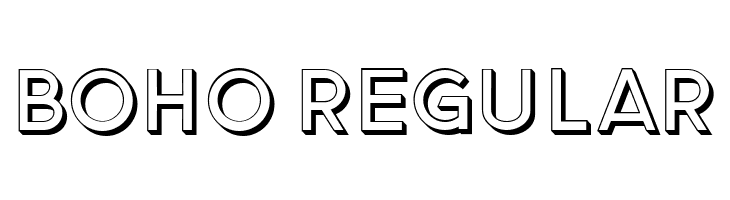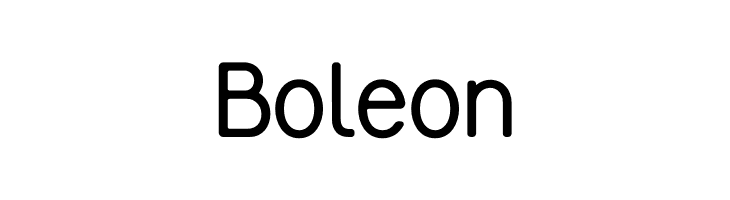
A playful, cursive script font with elegant, flowing characters.
A playful, hand-drawn font with tall, narrow letters and a whimsical style.
A playful, curly font with bold strokes and decorative swirls.
An elegant and bold decorative font with artistic flourishes.
An elegant, Art Deco-inspired font with geometric shapes and subtle curves.
A lively handwritten font with fluid strokes and a casual elegance.
A bold, geometric font with a modern and futuristic style.
A bold, playful script font with flowing, energetic letterforms.
A dynamic brush script font with bold, fluid strokes and a hand-painted look.
A graceful and elegant script font with flowing cursive strokes.
A bold, brushstroke font with jagged edges and an energetic style.
A bold, dripping font perfect for horror-themed designs.
An elegant and flowing script font with dynamic, cursive strokes.
A graceful and fluid script font with a natural handwritten style.
A bold, shadowed font with a dynamic, three-dimensional look.
A tall, narrow font with a striking, elegant design and consistent stroke width.
A tall, narrow font with minimal serifs and a vintage western style.
A playful, casual handwritten font with smooth, flowing curves.
A geometric, modern font with tall, narrow letterforms and consistent stroke width.
A geometric, modern font with bold weight and sharp angles.
A bold, geometric font with rounded corners and a modern aesthetic.
A playful and energetic handwritten script font with bold, smooth strokes.
A bold, decorative font with elegant curves and a vintage charm.
An elegant script font with high contrast and graceful, flowing strokes.
A lively and elegant script font with flowing, interconnected letterforms.
An elegant, calligraphic font with flowing, dynamic strokes.
A fluid and elegant cursive font with continuous, flowing strokes.
A bold, high-contrast font with elongated vertical strokes and sharp serifs.
An elegant serif font with high contrast and classic design elements.
A bold, geometric stencil font with an industrial feel.
A dynamic and energetic handwritten font with fluid strokes.
An elegant, flowing script font with smooth, cursive strokes.
A modern, high-contrast font with elegant and artistic character designs.
A bold, flowing script font with a dynamic and elegant handwritten style.